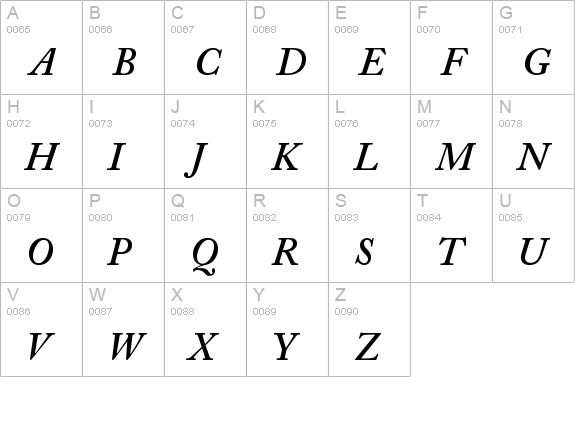
Adobe Caslon Semibold Italic is a sub-bold, structured, italic variant in the Adobe typeface family \xE2\x80\x94 well suited to sub-headlines and emphasised passages.
Adobe Caslon Semibold Italic is a timeless and elegant typeface that exudes sophistication and charm. With its bold weight and graceful italic design, this font strikes the perfect balance between traditional and modern styles. The distinctive serifs and flowing lines of Adobe Caslon Semibold Italic make it an ideal choice for projects that require a touch of class and refinement. And the best part? You can download Adobe Caslon Semibold Italic for free at FontsMarket.com. Whether you're working on a print design project, creating a website, or designing branding materials, this font will elevate your work to a new level of professionalism. Don't miss out on the opportunity to add this versatile and beautiful typeface to your collection – download Adobe Caslon Semibold Italic today!